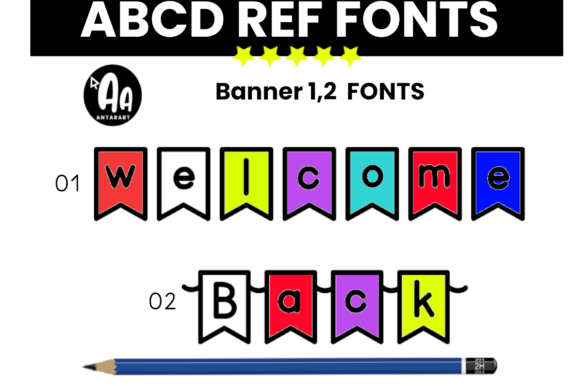
The ABCD REF Banner Font: A Playful Celebration of Color and Fun
I’ll never forget the time I was working on a birthday banner for a friend’s kid, and I just couldn’t find the perfect font. I wanted something that would scream “Happy Birthday!” in a fun, playful way. That’s when I stumbled upon the ABCD REF Banner Font. Its colorful, pennant-style design instantly caught my eye, and I knew I had found the perfect fit. In this article, I’ll share my experience with this delightful font, its features, and how to make the most of it in your designs.
Here’s what I’m obsessed with about the ABCD REF Banner Font:
• ✨ Playful, colorful design: Each character sits inside a vibrant flag shape, making it perfect for celebratory messages.
• ✅ Easy to read: The bold outlines and charming letterforms make it easy to read, even from a distance.
• ✅ Versatile: Ideal for banners, bulletin boards, classroom decor, birthday signage, and school projects.
A few things to keep in mind:
• 🤔 Limited use cases: While the font is amazing for celebratory messages, it might not be the best fit for more formal or professional designs.
• ⚠️ Glyph limitations: Some users have reported issues with certain glyphs not displaying correctly. However, this is relatively rare and usually easily fixable.
The ABCD REF Banner Font comes with a range of OpenType features and glyphs that can add an extra layer of creativity to your designs. Here are a few tips:
• Stylistic alternates: Experiment with different letterforms and swashes to add visual interest.
• Glyphs: Use the font’s built-in glyphs to add icons, shapes, and other design elements.
The Designer Inspiration Behind ABCD REF Banner Font
The ABCD REF Banner Font was designed with one goal in mind: to create a playful, celebratory font that would bring joy to designs. The designer, inspired by childhood memories of colorful pennant banners, set out to create a font that would evoke a sense of fun and festivity. The result is a font that’s perfect for any occasion that calls for a little extra excitement.